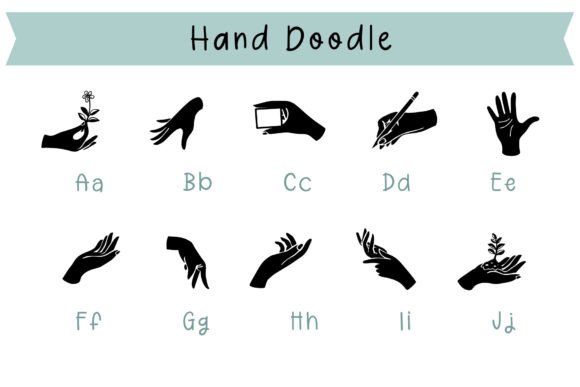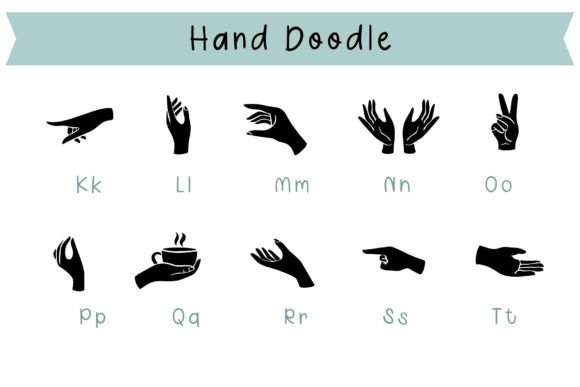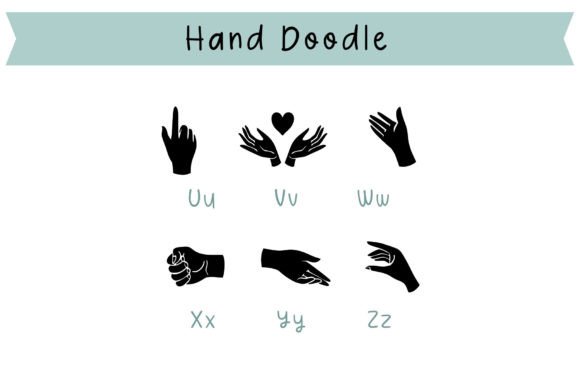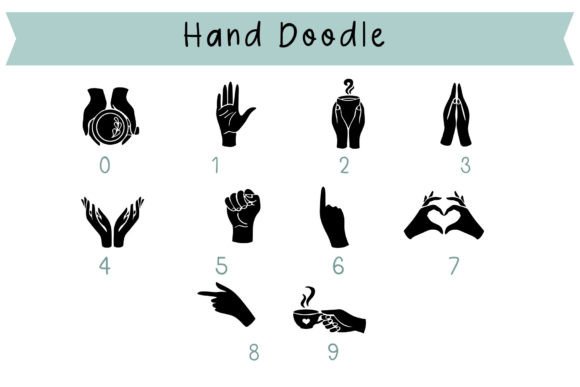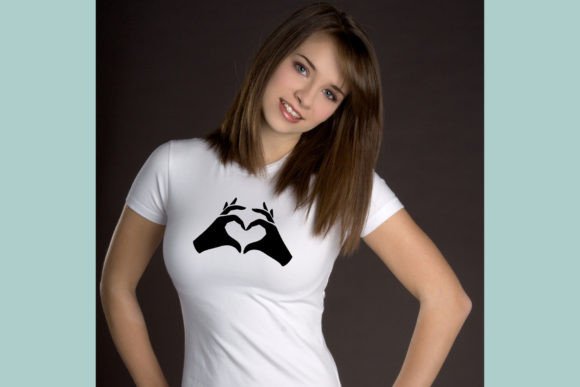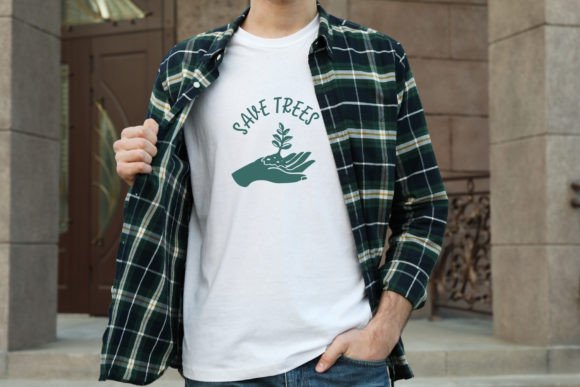
Introducing Hand Doodle Font: Adding a Touch of Whimsy to Your Designs
Are you tired of using the same old fonts in your designs? Do you want to add a touch of creativity and playfulness to your projects? Look no further than the Hand Doodle Font! This fun and quirky font features hands doing all sorts of activities, making it perfect for designers and crafters who want to add a bit of whimsy to their work.
What is Hand Doodle Font?
Hand Doodle Font is a unique and creative font that showcases hands engaging in various activities. From holding hearts to giving thumbs up, this font is sure to bring a smile to your face. The font is designed to be playful and fun, making it ideal for designs that need a touch of personality.
Features of Hand Doodle Font
- Unique and Creative: Hand Doodle Font is unlike any other font you’ve ever seen. Its creative and playful designs are sure to make your projects stand out.
- Playful and Fun: This font is perfect for designs that need a touch of whimsy and playfulness. It’s sure to bring a smile to your face and engage your audience.
- Versatile: Hand Doodle Font can be used for a wide range of projects, from greeting cards and invitations to social media graphics and website headers.
Uses of Hand Doodle Font
Hand Doodle Font is perfect for a wide range of projects, including:
- Greeting Cards: Add a touch of whimsy to your greeting cards with this fun and playful font.
- Invitations: Make your invitations stand out with Hand Doodle Font’s unique and creative designs.
- Social Media Graphics: Add a bit of personality to your social media graphics with this fun and engaging font.
- Website Headers: Use Hand Doodle Font to create eye-catching website headers that showcase your brand’s personality.
- Crafting Projects: This font is perfect for crafters who want to add a touch of whimsy to their projects, such as scrapbooking, journaling, and card making.
Tips for Using Hand Doodle Font
Here are a few tips for using Hand Doodle Font in your designs:
- Use it Sparingly: While Hand Doodle Font is fun and playful, it can be overwhelming if used too much. Use it sparingly to add a touch of whimsy to your designs.
- Pair it with Other Fonts: Pair Hand Doodle Font with other fonts to create a unique and interesting design.
- Experiment with Colors: Experiment with different colors to find the perfect combination that showcases your design.
Hand Doodle Font is a fun and creative font that’s perfect for designers and crafters who want to add a touch of whimsy to their projects. With its unique and playful designs, this font is sure to bring a smile to your face and engage your audience. Whether you’re creating greeting cards, invitations, social media graphics, or website headers, Hand Doodle Font is the perfect choice. So why not give it a try and see how it can add a touch of creativity to your designs?